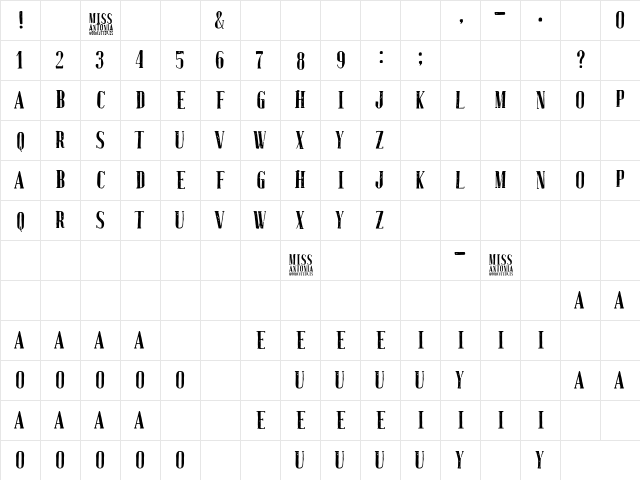
Miss Antonia Regular
Design Context for Miss Antonia Typeface
Miss Antonia is a composed and adaptable typeface that performs quietly and consistently across a wide range of design contexts.